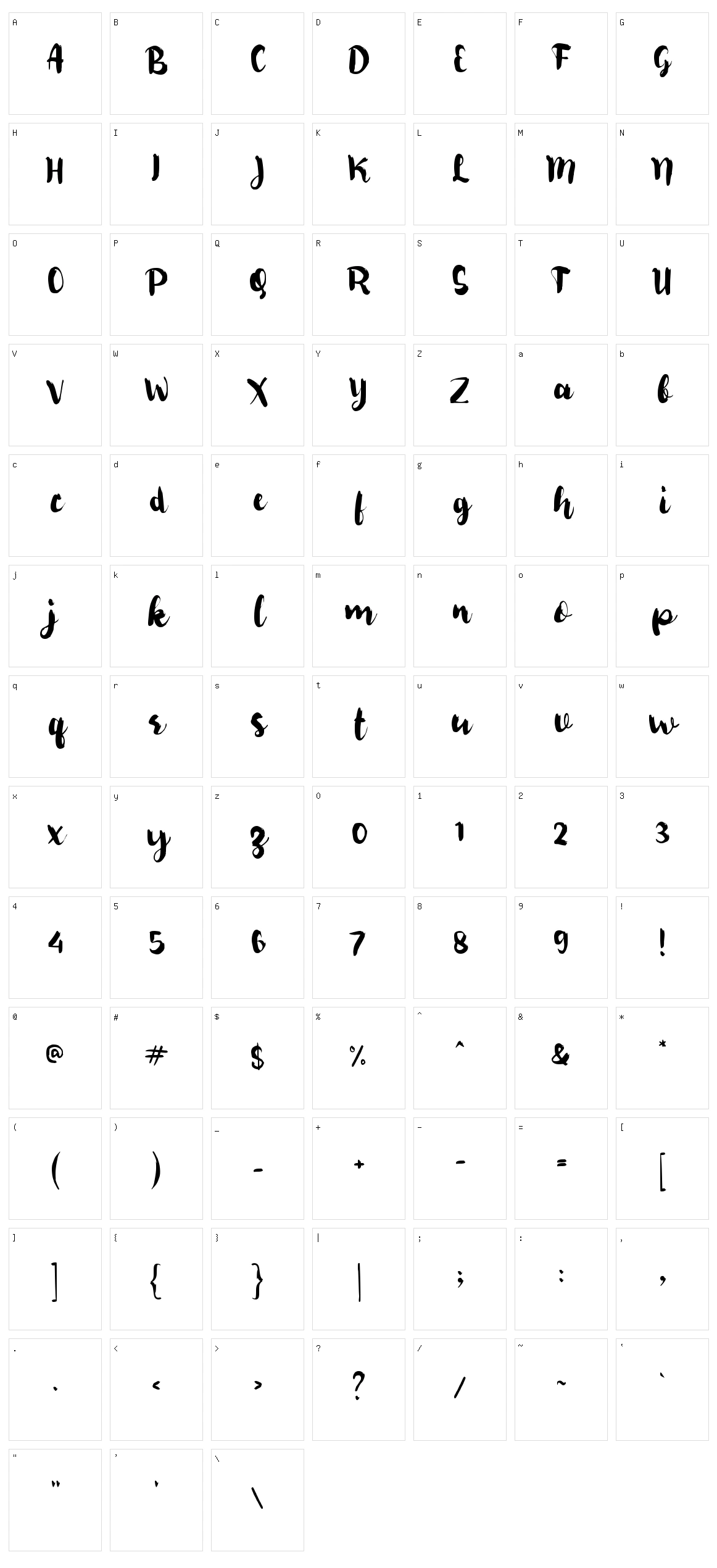
The free font b Berbisik is carefully designed by wep, showcasing a thoughtful balance of creativity and usability and falls under the Script font style. When you download the ZIP file, it contains only 18.68 KB of font files, making it lightweight and quick to download. Please review the license details below to understand permitted usage and distribution rights. If license information is not available, we recommend using this font for personal projects only or contacting the author directly for commercial usage permissions.